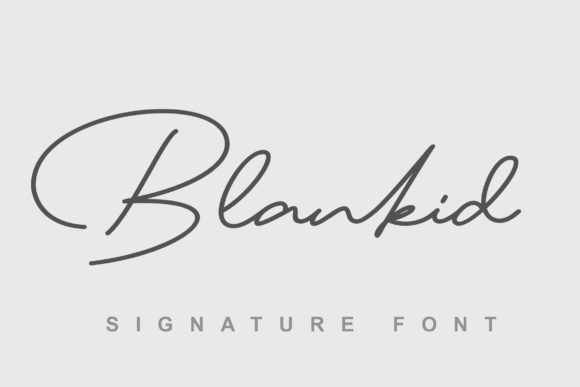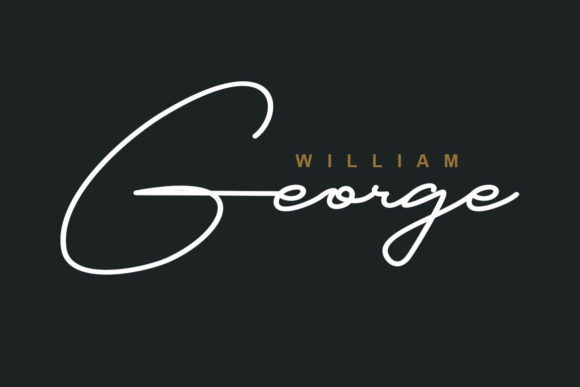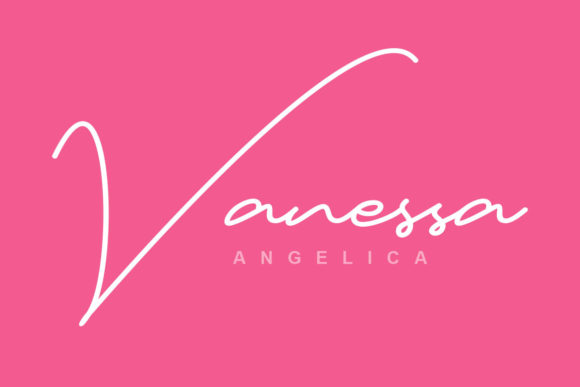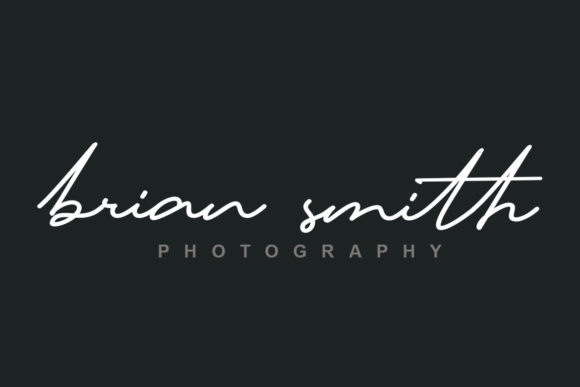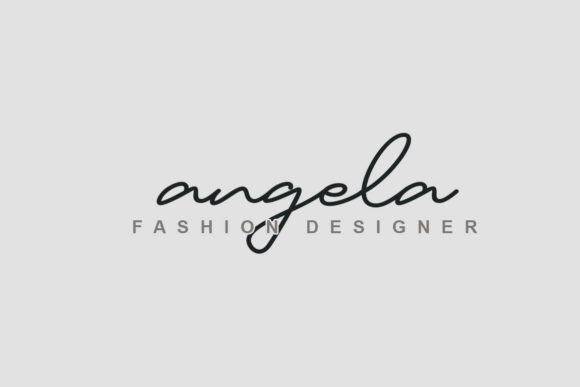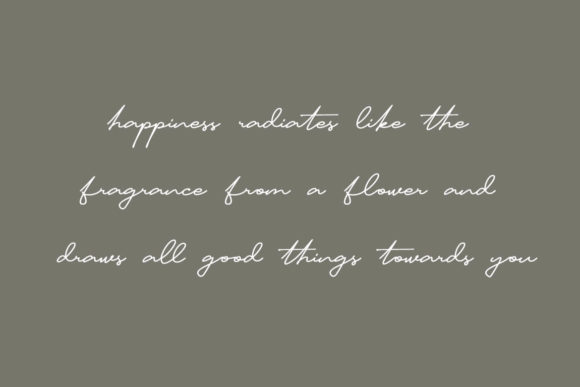
Introducing Blankid Font: The Elegant Signature Typeface for Creative Minds
In the world of typography, a well-crafted font can elevate a design from ordinary to extraordinary. For designers, crafters, and businesses looking for that perfect elegant touch, the Blankid Font is an excellent choice. This stunning signature typeface is not only versatile but also perfect for adding a sophisticated flair to various projects. In this article, we’ll dive into the features, uses, and benefits of the Blankid Font, and explore why it has become a go-to for creatives.
The Blankid Font: A Signature Typeface with Elegance
The Blankid Font is described as an elegant signature typeface, and for good reason. Its fluid lines, balanced proportions, and refined aesthetic make it a beautiful addition to any design. Whether you’re creating a logo, watermark, or simply want to add a personal touch to your work, the Blankid Font is designed to impress. Its unique charm lies in its ability to convey sophistication and style, making it perfect for a variety of applications.
Versatility at Its Best: Uses of the Blankid Font
One of the standout features of the Blankid Font is its versatility. It’s not limited to just one or two uses; instead, it can be applied to a wide range of projects. Here are some popular ways designers and crafters are using the Blankid Font:
- Signatures: Add a personal and elegant touch to your digital or handwritten signatures.
- Watermarks: Protect your work with a sophisticated watermark that adds a professional touch.
- Businesses: Use the Blankid Font in your branding, packaging, or marketing materials to convey elegance and refinement.
- Crafting and DIY Projects: Perfect for crafters, the Blankid Font can be used in handmade cards, scrapbooking, and other paper crafts.
Benefits of Using the Blankid Font
So, why should you choose the Blankid Font for your projects? Here are some benefits that make it a compelling choice:
- Elegance: The Blankid Font brings an undeniable level of sophistication to any design.
- Versatility: Use it across various projects, from personal to professional.
- Easy to Read: Despite its elegant nature, the Blankid Font remains clear and easy to read.
- Customizable: Experiment with different sizes, colors, and styles to match your project’s tone and theme.
Tips for Getting the Most Out of the Blankid Font
To truly leverage the potential of the Blankid Font, consider the following tips:
- Pair it with Other Fonts: Combine the Blankid Font with complementary fonts to create visual interest.
- Play with Colors: Don’t be afraid to experiment with different colors to match your brand or project’s aesthetic.
- Adjust Size and Weight: Depending on your project’s needs, adjust the font size and weight to emphasize certain elements.
The Blankid Font is more than just a typeface; it’s a design element that can transform your projects with its elegance and versatility. Whether you’re a designer looking to elevate your client’s branding, a crafter adding a personal touch to your DIY projects, or a business owner seeking to refine your marketing materials, the Blankid Font is an excellent choice. Its ability to convey sophistication and style makes it a valuable addition to any creative toolkit. So, why wait? Explore the possibilities of the Blankid Font today and discover how it can enhance your designs.